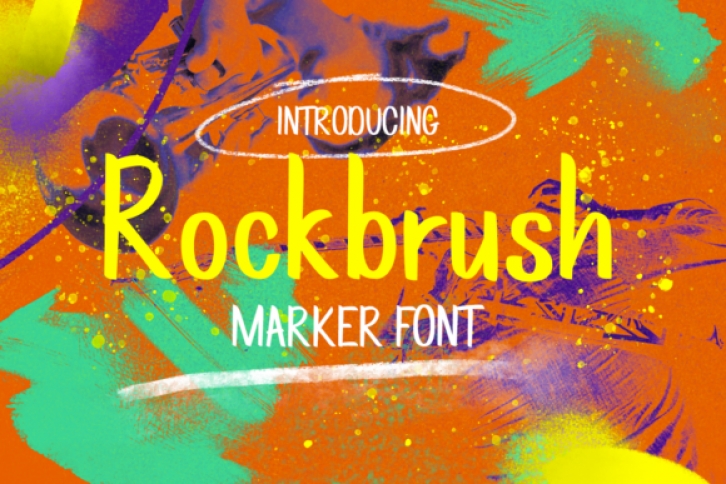
The Rockbrush is an amazing display marker font. It has a modern and energetic look which can be perfect to make any design stand out.
It’s great for logo designs, music projects & social media posts, event posters, brand imagery,  product packaging, handwritten quotes, merchandise, and much more!